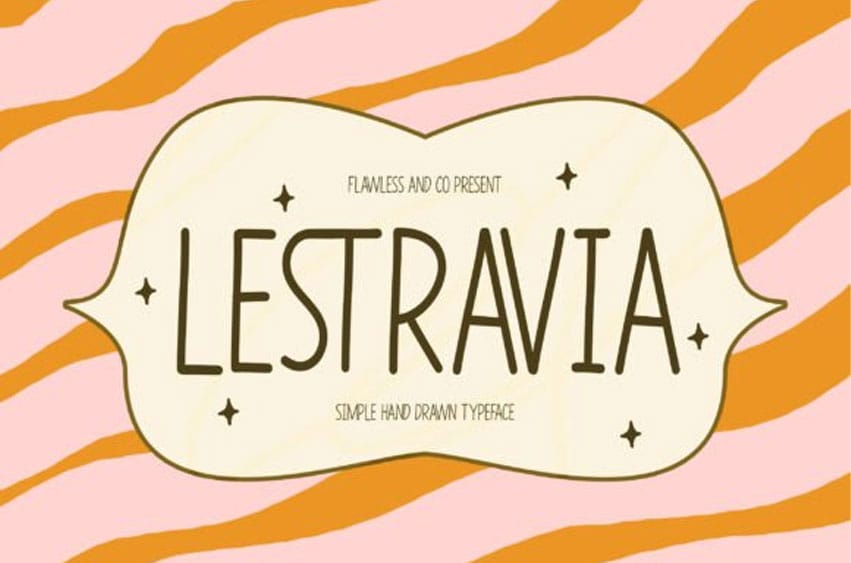
Lestravia Font is a simple hand drawn font that brings a warm, natural, and effortlessly personal touch to every design. Inspired by the beauty of handwritten lettering, Lestravia features relaxed strokes, organic shapes, and subtle imperfections that create an authentic handmade feeling.
Its uncomplicated character makes it easy to use while adding just the right amount of personality to your typography.